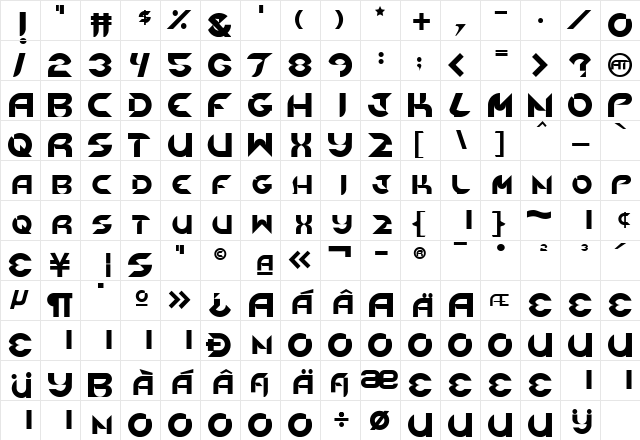
NewDigital Original
Design Context for NewDigital Typeface
NewDigital channels digital-age aesthetics through its sharp, structured letterforms — ideal for brands that want to signal innovation.
Pro Tip: Use NewDigital in combination with a neutral sans for body text. Let it define the brand voice in headlines while keeping reading comfortable elsewhere.